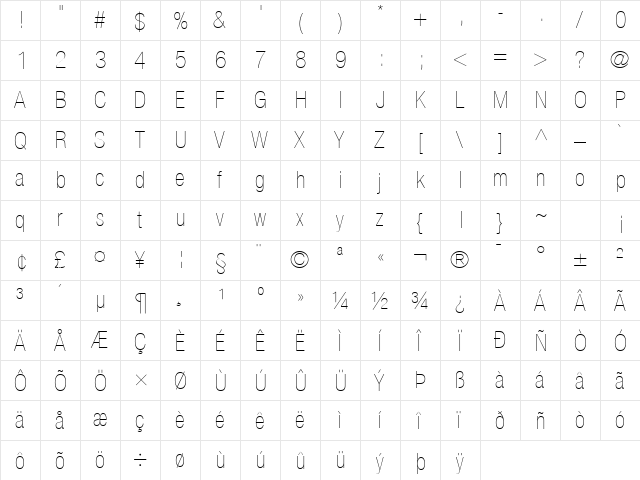
Context Reprise LightCond SSi Normal Font Preview
Design Context for Context Reprise LightCond SSi Typeface
Context Reprise LightCond SSi offers clean, dependable letterforms without strong stylistic allegiance, making it a practical choice for designers who need flexibility. Its slender proportions lend an understated elegance to any composition. Its narrow stance lets it pack a punch even in space-constrained designs.